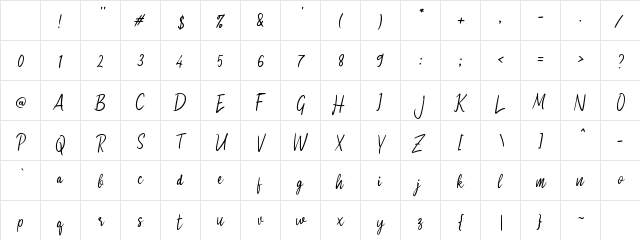
Complete j Jobs Hiring Regular glyph index. Displaying only characters natively supported by j Jobs Hiring Regular font.
j Jobs Hiring is a composed and adaptable typeface that performs quietly and consistently across a wide range of design contexts.